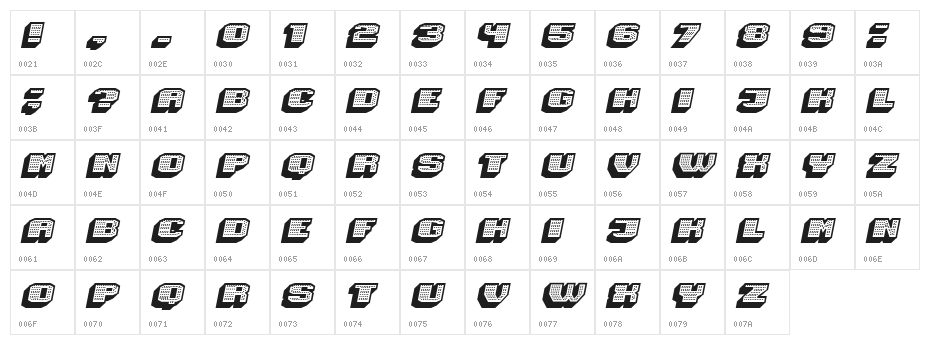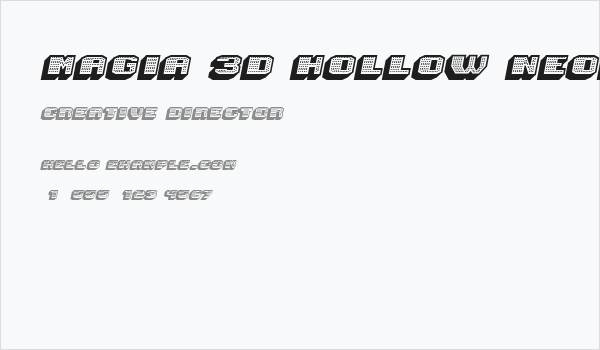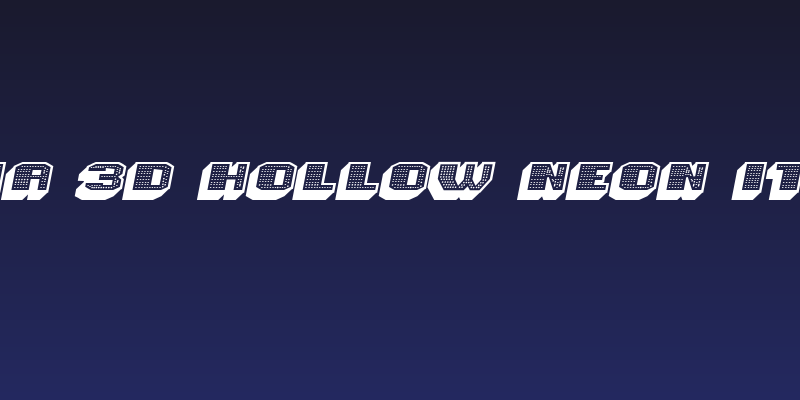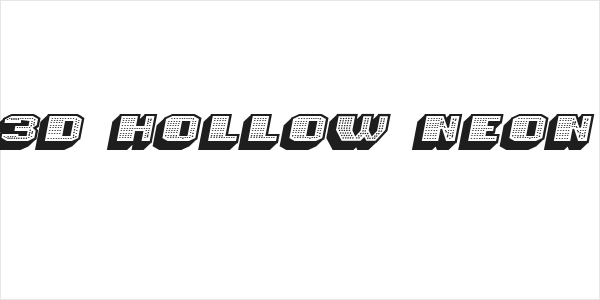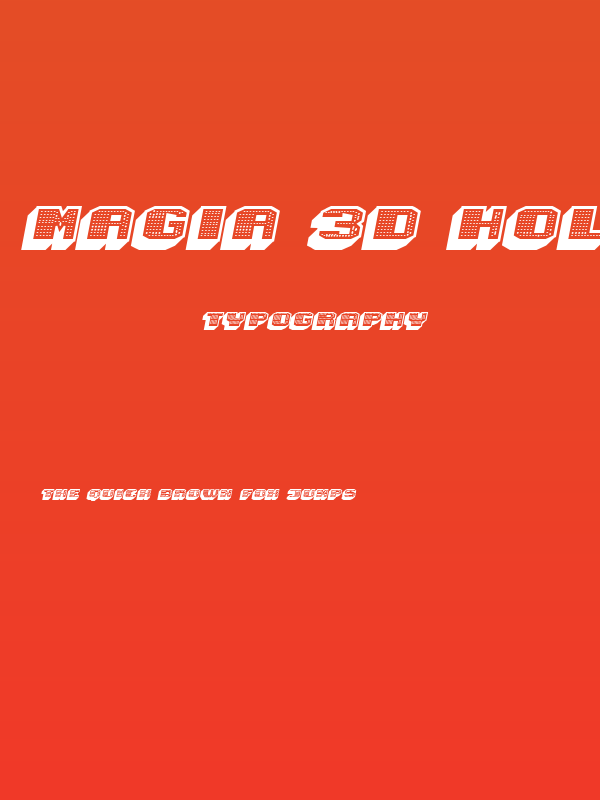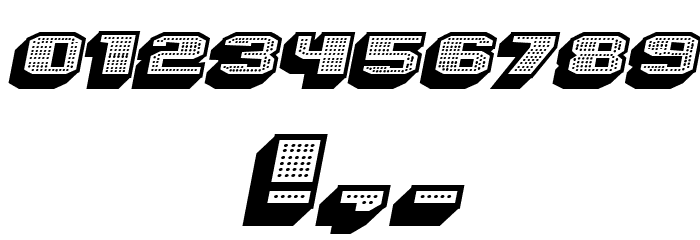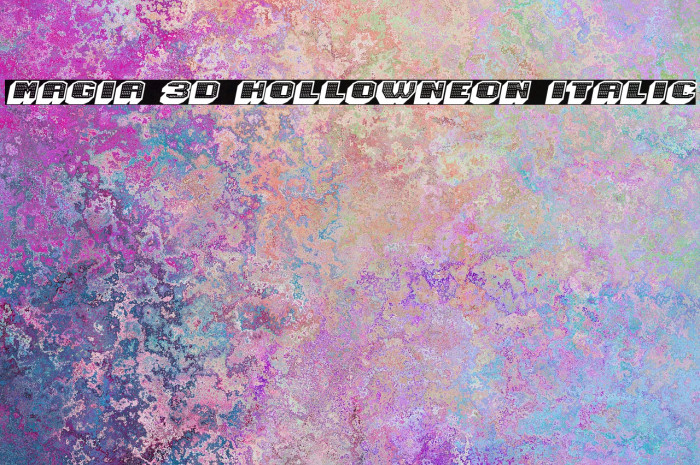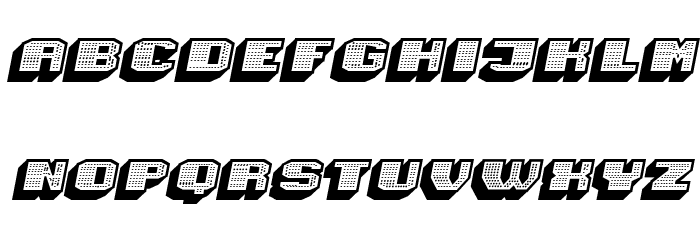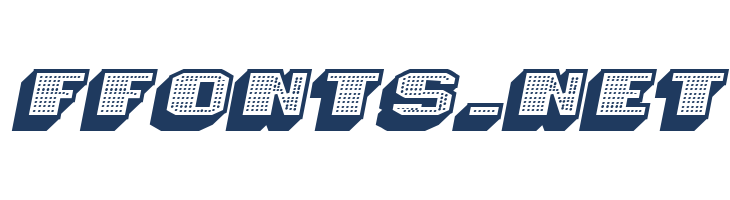
Magia 3D Hollow-Neon Italic Font
Magia 3D Hollow-Neon Italic Description
This font features a bold, three-dimensional design with a hollow interior and a distinct neon effect. The characters are italicized, giving them a dynamic and forward-leaning appearance. Each letter and number is outlined with a thick black shadow, enhancing the 3D effect and making the font stand out. The interior of the characters is dotted, adding a textured look that resembles a neon sign. This font is highly decorative and eye-catching, suitable for projects that require a strong visual impact.
| Proposed Projects | Ideal for retro-themed designs, signage, posters, and any project needing a vibrant, eye-catching font. |